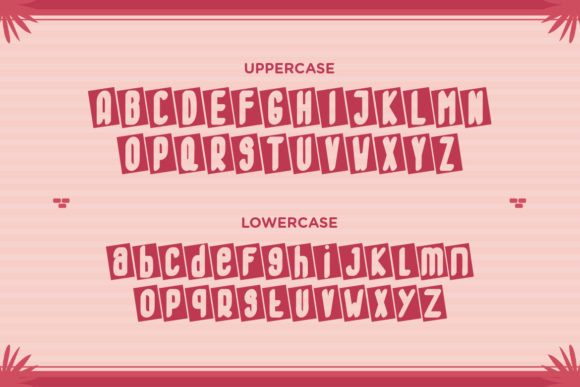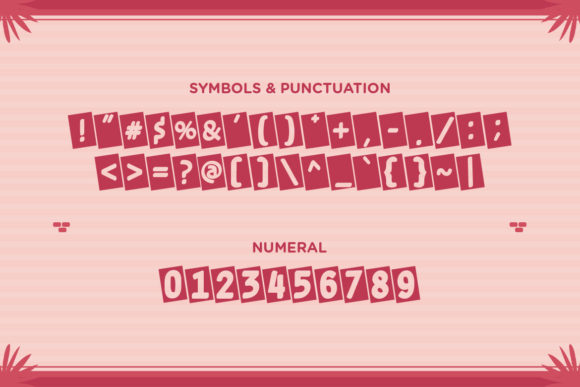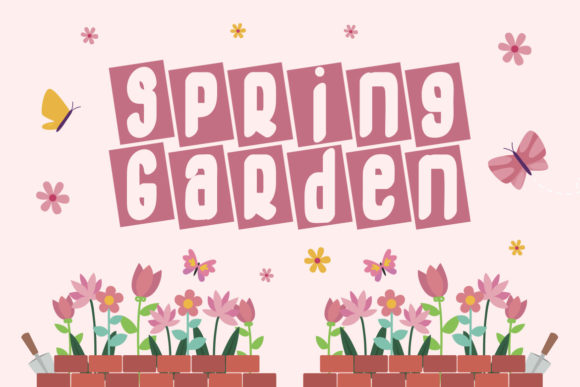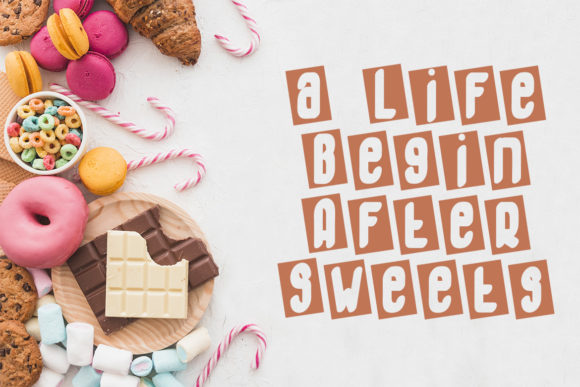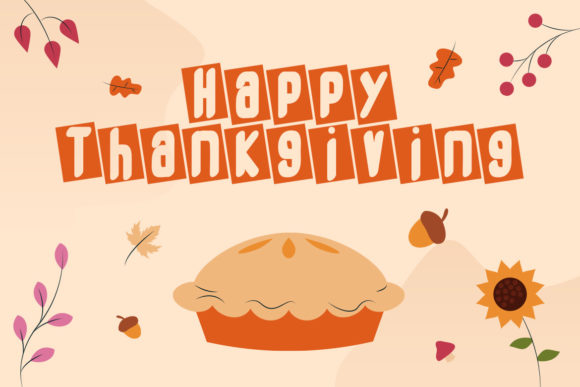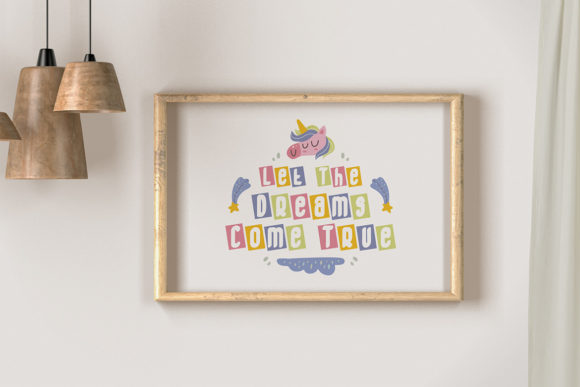
Introduction to Hotel Park Font
Hotel Park is a cute and quirky display font.
Whether you use it for cartoon related designs, children games or just any creation that requires a lovely touch, this font will be an amazing choice .